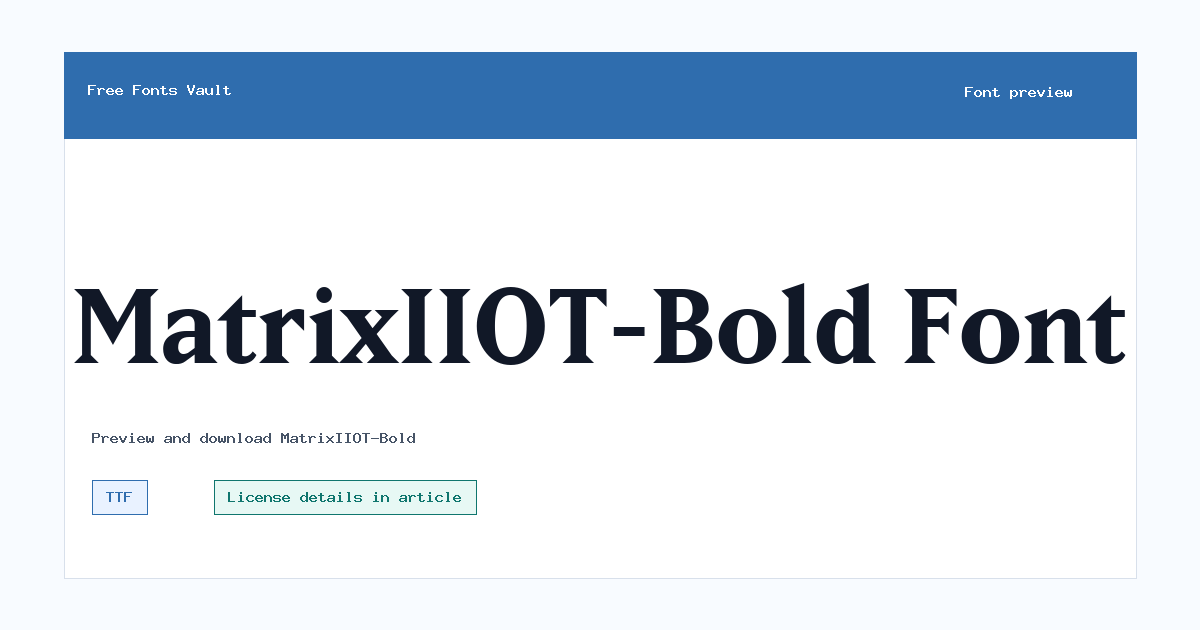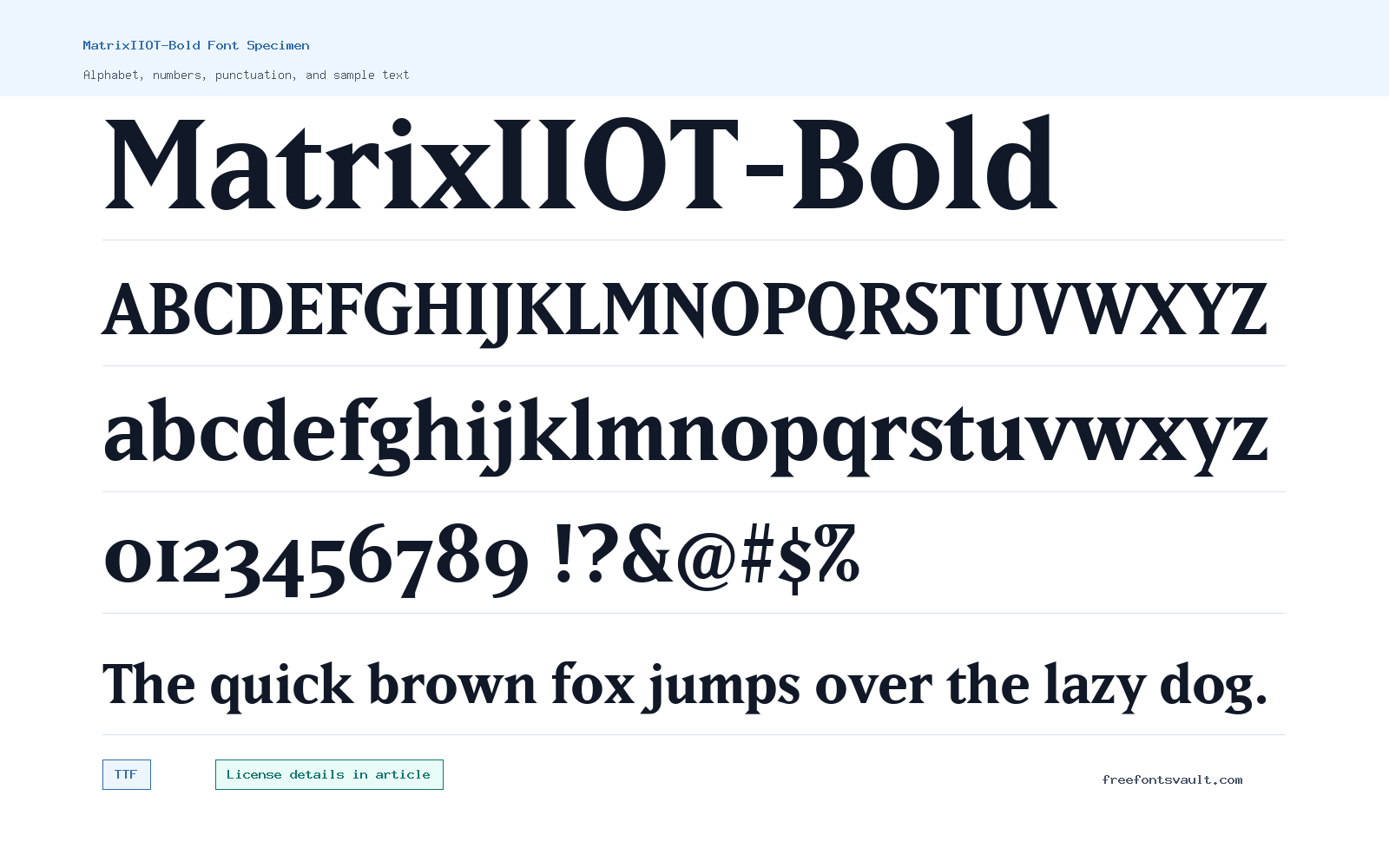
MatrixIIOT-Bold
- Designer Zuzana Licko
- Foundry Emigre Inc.
MatrixIIOT-Bold font.
MatrixIIOT-Bold is a bold TrueType font for short text that needs weight and structure. It is best tested in headlines, labels, poster lines, navigation-style text, and other places where a heavier voice helps the words stand out.
About MatrixIIOT-Bold
Use MatrixIIOT-Bold as a display or emphasis font rather than a default paragraph font. It can work well for title cards, labels, strong subheads, short brand-style lines, poster text, and visual systems that need a firm typographic anchor. If a page includes longer reading, pair it with a calmer regular-weight typeface and reserve MatrixIIOT-Bold for the most visible text.
- Strong fit for short, visible display text
- Useful as an accent when paired with a readable body font
- Headlines, title cards, and short display lines
- Poster text, labels, badges, and navigation-style words
- Brand mockups that need a confident bold voice
- Emphasis inside layouts that use a quieter companion font
- Testing heavy typography before building a full design system
What is MatrixIIOT-Bold best used for?
It is best tested for short bold text such as headlines, labels, posters, title cards, and emphasis lines.